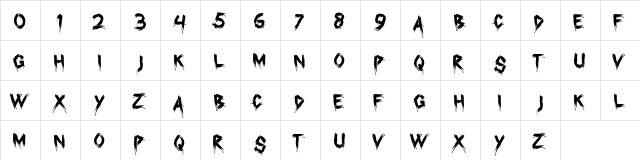
Brack Regular
Design Context for Brack Typeface
Brack is a composed and adaptable typeface that performs quietly and consistently across a wide range of design contexts.